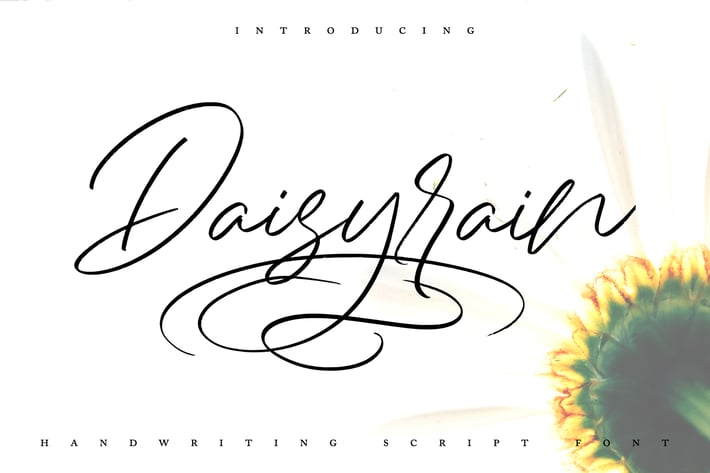
DaisyRain | Handwriting Script Font
DaisyRain | Handwriting Script Font with a calligraphy style, So beautiful on invitation like greeting cards, branding materials, business cards, quotes, posters, and more!